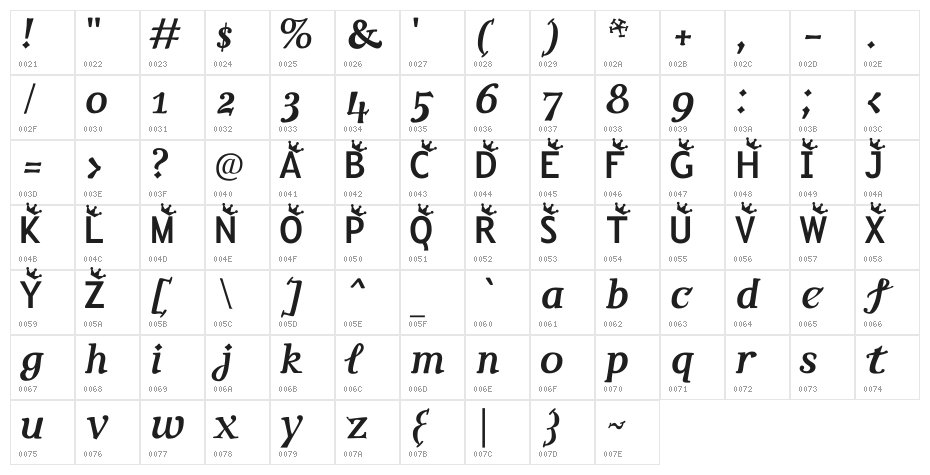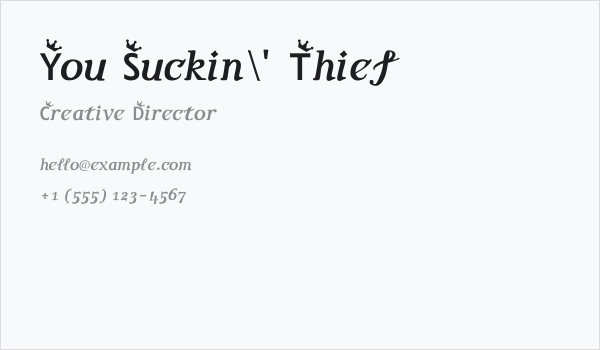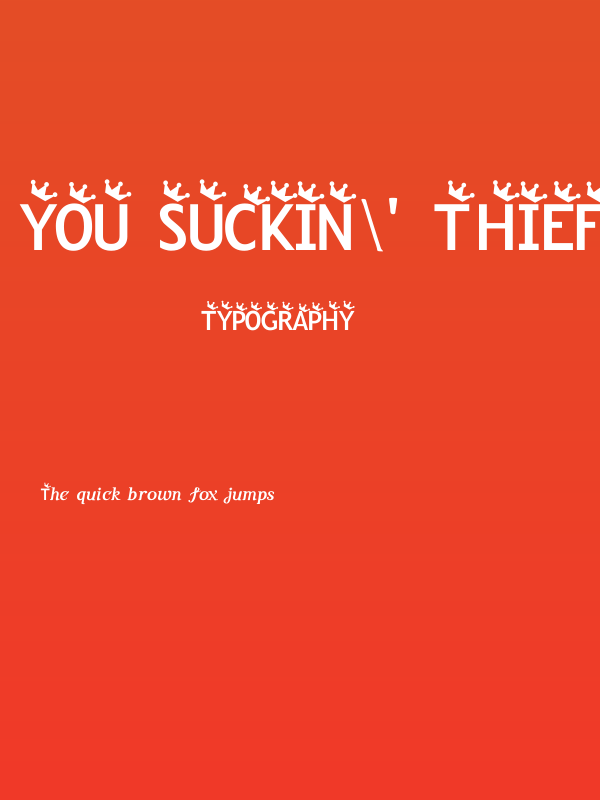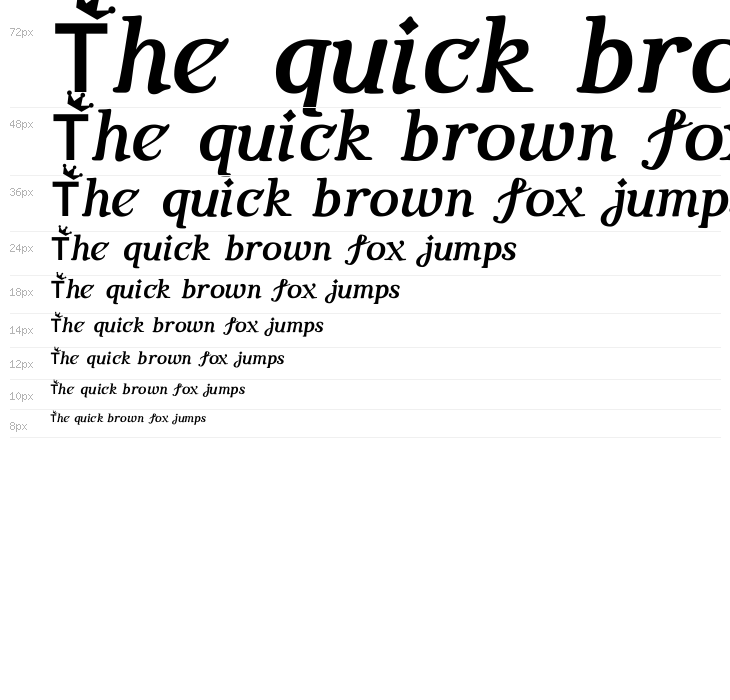
You Suckin' Thief Font
You Suckin' Thief Description
This font features a playful and whimsical design, characterized by the addition of small crown-like embellishments atop each uppercase letter. The uppercase letters are bold and have a strong presence, while the lowercase letters exhibit a more fluid and cursive style, adding a dynamic contrast. The numerals and special characters maintain the playful theme, with consistent stroke thickness and a slight slant that enhances the font's overall lively appearance. The combination of decorative elements with a classic serif structure makes it suitable for creative and eye-catching designs.
| Proposed Projects | Ideal for children's book covers, playful branding, party invitations, and whimsical posters. |